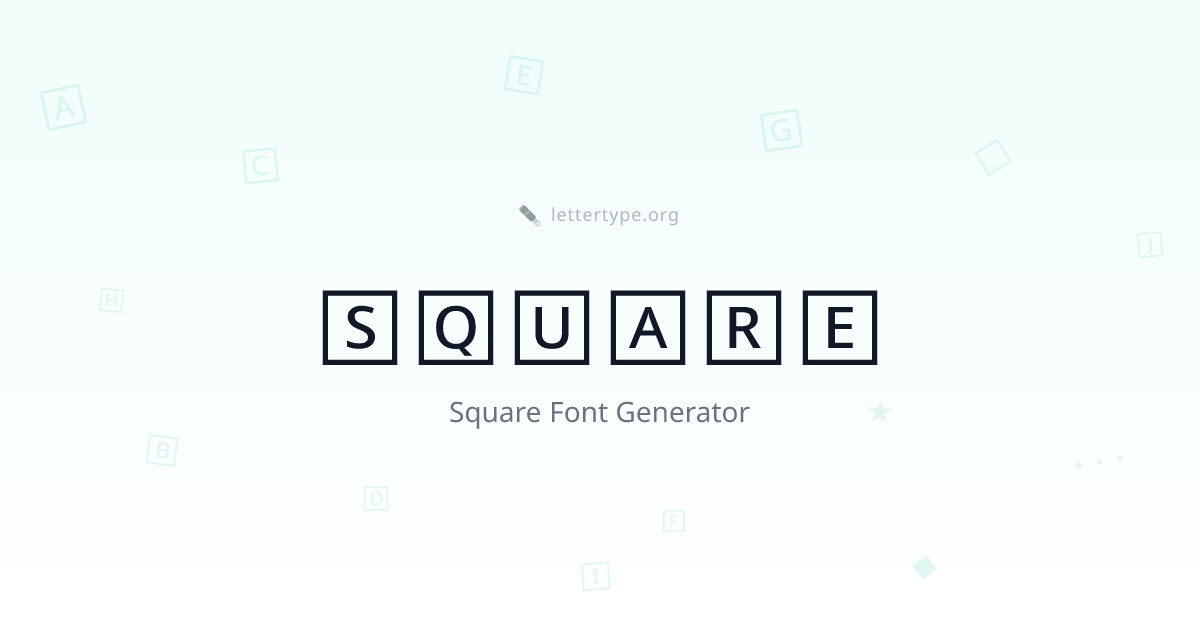
Square Font Generator — 🄰🄱🄲 Ꞅquared Text
Square font places each letter inside a square outline — creating a structured, geometric look that's precise, architectural, and distinctly modern. Unlike rounded bubble text, square letters feel ordered and grid-like, perfect for minimalist aesthetics and bold typographic statements.
🄴🅅🄴🅁🅈🅃🄷🄸🄽🄶 🄸🄽 🅂🅀🅄🄰🅁🄴🅂.
What Is Square Font?
Square font uses Unicode characters from the Enclosed Alphanumeric Supplement block (U+1F130–U+1F149). Each letter appears inside a square frame, giving text a structured, grid-like appearance.
The square style draws from several design traditions: pixel art, early digital typography, postage stamps, and the geometric aesthetic of modernist graphic design.
Square vs Square Filled
| Style | Example | Feel |
|---|---|---|
| Square (outline) | 🄰🄱🄲 | Clean, minimal, architectural |
| Square Filled | 🅰🅱🅲 | Bold, solid, high-contrast |
The outline square feels more refined and minimal. The filled version has the same structure but with solid backgrounds for maximum contrast and boldness.
Where to Use Square Text
Instagram bios — square text creates a clean, structured profile aesthetic that stands out from the usual italic and cursive styles.
Discord usernames — geometric square letters look striking in server member lists and are immediately identifiable.
Twitter and LinkedIn — the structured look of square text reads as organized and intentional, suiting professional or creative tech profiles.
Design and architecture profiles — square font naturally complements the grid-based thinking of designers, architects, and engineers.
Gaming and tech communities — the pixel-art association of square letters makes them popular in gaming, programming, and retro tech communities.
Aesthetic and streetwear profiles — square letters appear in streetwear branding, zine culture, and graphic design communities.
Square Font — FAQ
What's the difference between square and square filled?
Square outline (🄰🄱🄲) shows each letter inside an empty square frame — the letter color shows through. Square filled (🅰🅱🅲) fills the square with solid color and shows the letter in white. Outline reads as more refined; filled reads as more graphic and high-impact.
Do square letters work on Instagram?
Yes. Instagram supports the Unicode Enclosed Alphanumeric Supplement block that contains square letters. They render correctly in bios, display names, and captions on both iOS and Android.
Are square Unicode letters readable?
Square letters are readable at normal reading sizes but can feel compact in long paragraphs. They work best for short labels, names, tags, and section headers rather than long text passages.
Do square characters affect character limits?
Each square character is one Unicode code point — same as a regular letter. 🄰 counts as one character, same as A. No penalty on any platform.
What aesthetic communities use square fonts?
Square fonts are popular in tech, developer, design, gaming, streetwear, and pixel art communities. The geometric structure maps onto grid-based thinking — popular with designers, architects, and programmers.